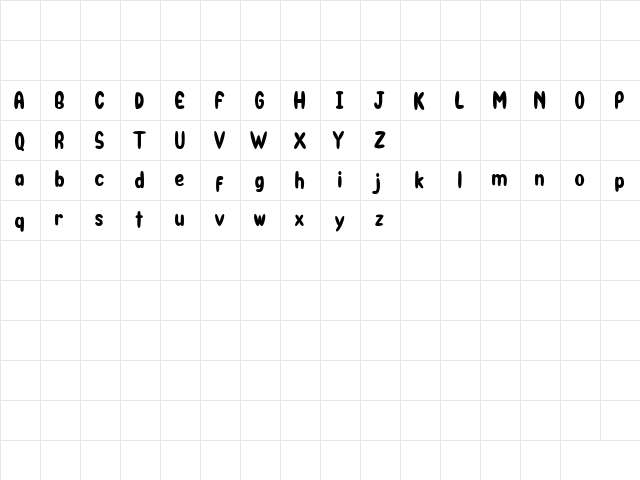
BooRush Regular
| Designer | Nurf Designs |
Design Context for BooRush Typeface
BooRush offers clean, dependable letterforms without strong stylistic allegiance, making it a practical choice for designers who need flexibility.